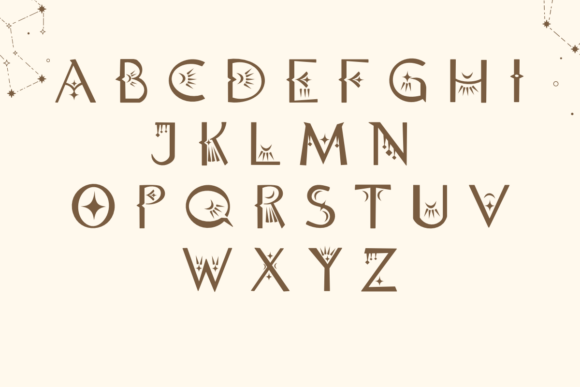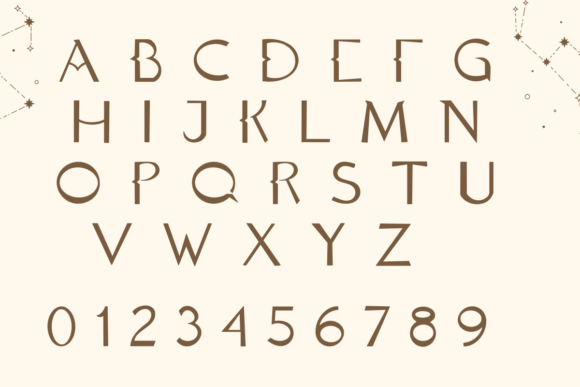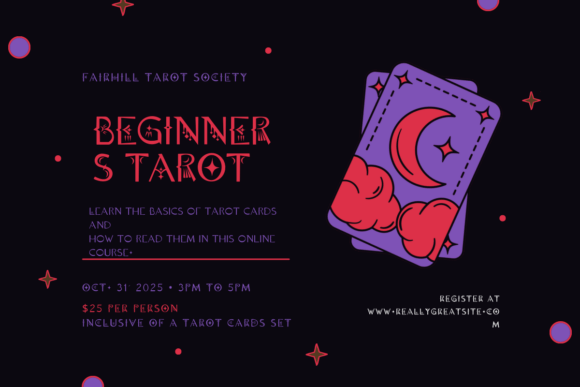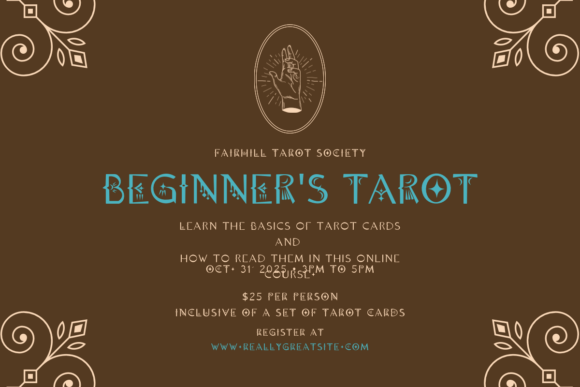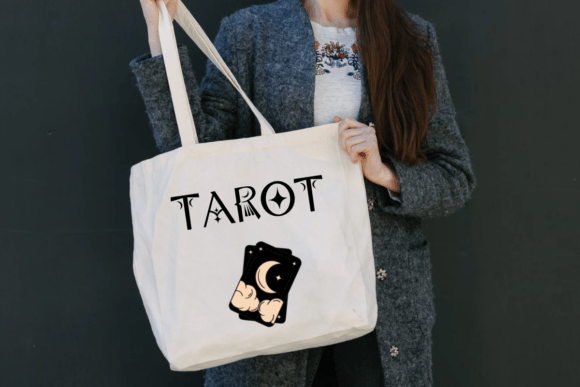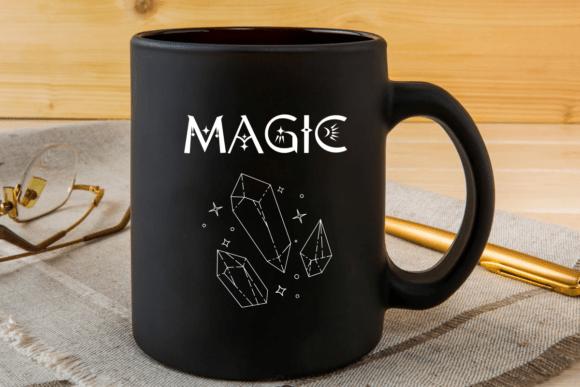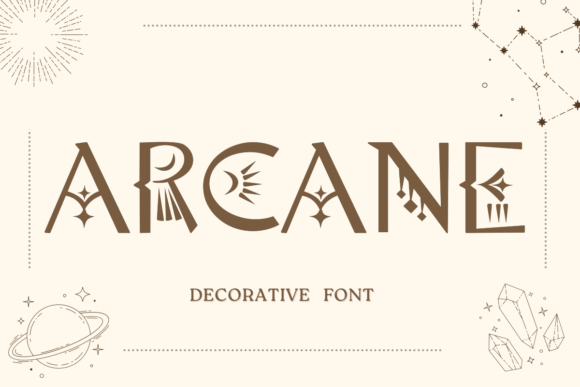
The Magical World of Arcane Font
I’ll never forget the time I was working on a project to create a custom greeting card for a friend’s birthday. I had all the design elements ready – the colors, images, and layout – but I was stuck on finding the perfect font. That’s when I stumbled upon the Arcane font, and it completely transformed my design. In this article, I’ll share my experience with Arcane, its features, and how you can use it to elevate your designs.
An Honest Review of Arcane Font
Arcane is a decorative font that has quickly become a favorite in my design toolkit. Here’s what I love about it:
- ✨ Unique and eye-catching design that’s perfect for making a statement
- ✅ Highly versatile and can be used for various design projects, from notes and diaries to banners and social media posts
- 💫 Supports OpenType features, glyphs, and stylistic alternates, giving you plenty of creative options
While Arcane is an excellent font, it’s not without its quirks:
- 🤔 Some characters may not be suitable for body text due to their decorative nature
- ⚠️ Limited use for formal or professional designs, as it may come across as too playful
The Backstory of Arcane Font
Arcane was designed with the intention of creating a unique and versatile font that could be used for a wide range of design projects. The designer aimed to craft a font that was both decorative and legible, making it perfect for creative hobbyists and designers alike. While the exact inspiration behind Arcane may be unknown, it’s clear that the font was designed to bring a touch of magic to your designs.
| What is the best way to use Arcane font? | Arcane is best used for creative projects such as notes, diaries, greeting cards, banners, and social media posts. It’s perfect for designs that require a touch of personality and whimsy. |
| Is Arcane font suitable for body text? | No, Arcane is a decorative font and may not be suitable for body text due to its unique design. It’s best used for headlines, titles, and short paragraphs. |